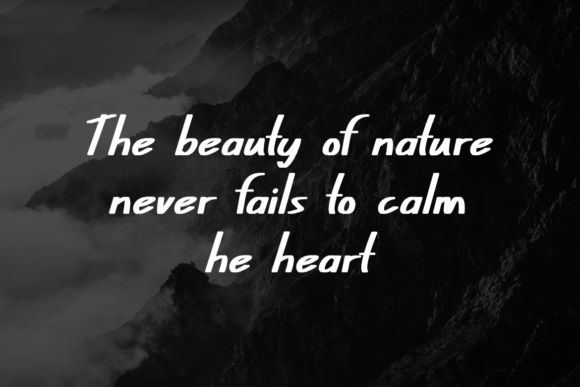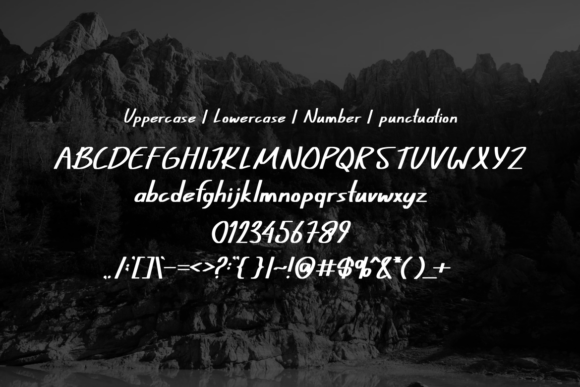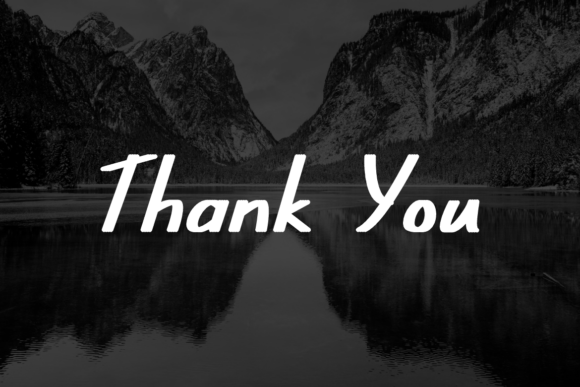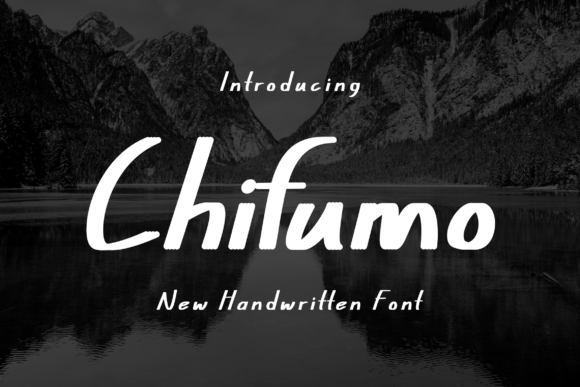
Introducing Chifumo Font: The Ultimate Bold and Authentic Handwritten Font
In the world of typography, fonts play a crucial role in conveying the tone and personality of a brand. For designers and crafters, finding the perfect font can be a daunting task. However, if you’re looking for a bold and authentic handwritten font that can elevate your branding projects, look no further than Chifumo Font. In this article, we’ll dive into the features and benefits of Chifumo Font, and explore how it can be used to create stunning designs.
What is Chifumo Font?
Chifumo Font is a bold and authentic handwritten font that is perfect for any branding project. Its unique and elegant style makes it stand out from other fonts, and its versatility allows it to be used in a variety of contexts. Whether you’re creating a logo, t-shirt design, or any other creative product, Chifumo Font is an excellent choice.
Key Features of Chifumo Font
- Bold and Authentic: Chifumo Font has a bold and authentic style that is sure to grab attention. Its handwritten texture gives it a personal and human touch that is perfect for brands looking to connect with their audience.
- Highly Versatile: Chifumo Font is extraordinary in a variety of contexts. It can be used for logos, t-shirt printing, creative products, and more. Its flexibility makes it an excellent choice for designers and crafters who need a font that can adapt to different projects.
- Elegant and Sophisticated: Chifumo Font has an elegant and sophisticated style that is perfect for brands looking to convey a sense of luxury and refinement. Its unique texture and bold lines make it a standout font that is sure to impress.
Benefits of Using Chifumo Font
So, why should you choose Chifumo Font for your branding projects? Here are just a few benefits of using this amazing font:
- Instant Recognition: Chifumo Font’s bold and authentic style makes it instantly recognizable. Use it to create a logo or brand identity that stands out from the crowd.
- Emotional Connection: The handwritten texture of Chifumo Font creates an emotional connection with the audience. Use it to create designs that are personal and relatable.
- Flexibility: Chifumo Font is highly versatile, making it perfect for a variety of projects. Use it for logos, t-shirt printing, creative products, and more.
How to Use Chifumo Font
Using Chifumo Font is easy. Here are a few tips to get you started:
- Pair it with Other Fonts: Chifumo Font pairs well with other fonts, making it easy to create stunning designs. Try pairing it with a sans-serif font for a bold and modern look.
- Experiment with Colors: Chifumo Font looks great in a variety of colors. Experiment with different colors to find the perfect combination for your design.
- Use it for Branding: Chifumo Font is perfect for branding projects. Use it to create a logo or brand identity that stands out from the crowd.
In conclusion, Chifumo Font is a bold and authentic handwritten font that is perfect for any branding project. Its unique and elegant style makes it stand out from other fonts, and its versatility allows it to be used in a variety of contexts. Whether you’re a designer or crafter, Chifumo Font is an excellent choice for creating stunning designs. So why wait? Download Chifumo Font today and take your branding projects to the next level.
- What is Chifumo Font?: Chifumo Font is a bold and authentic handwritten font that is perfect for any branding project.